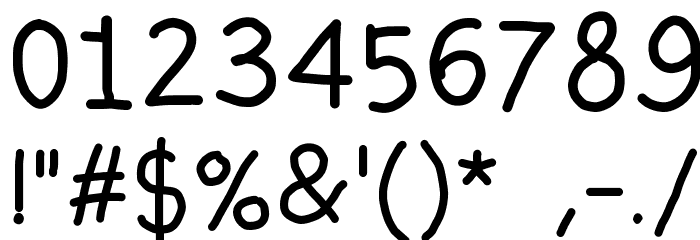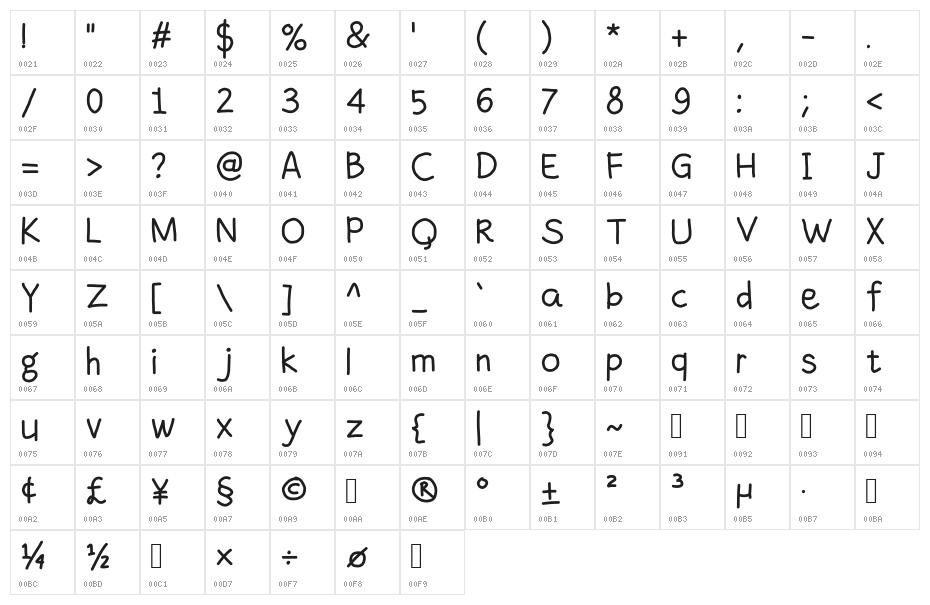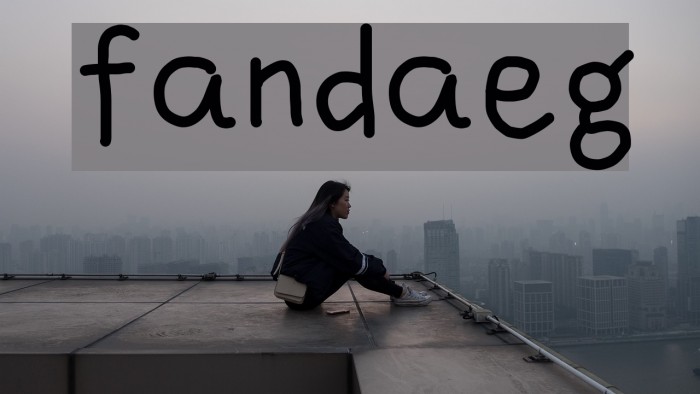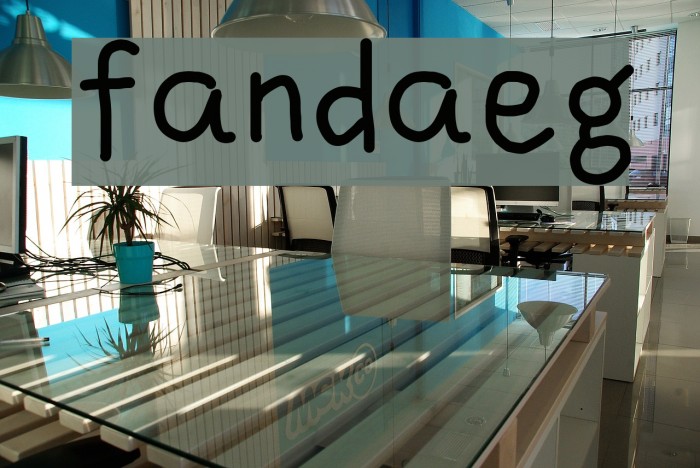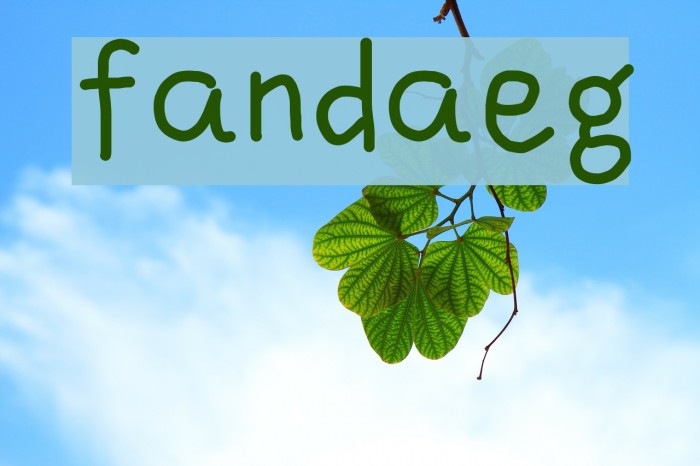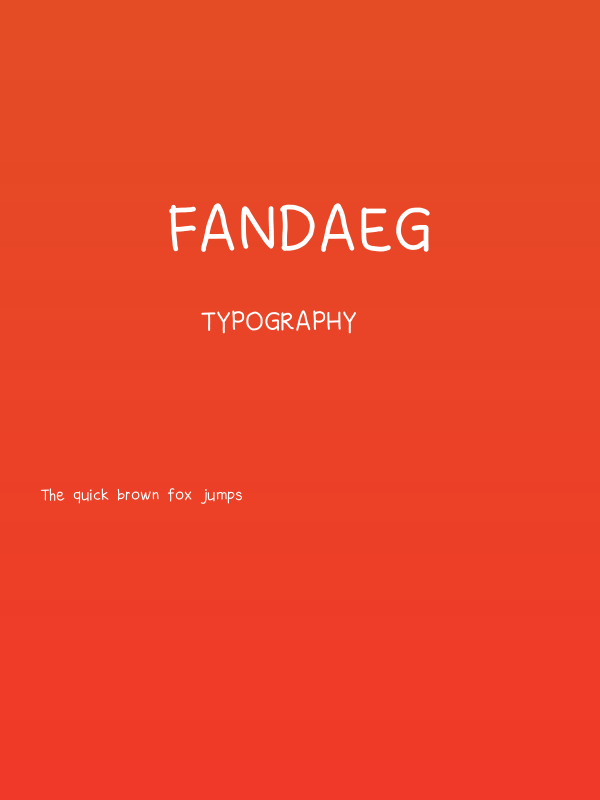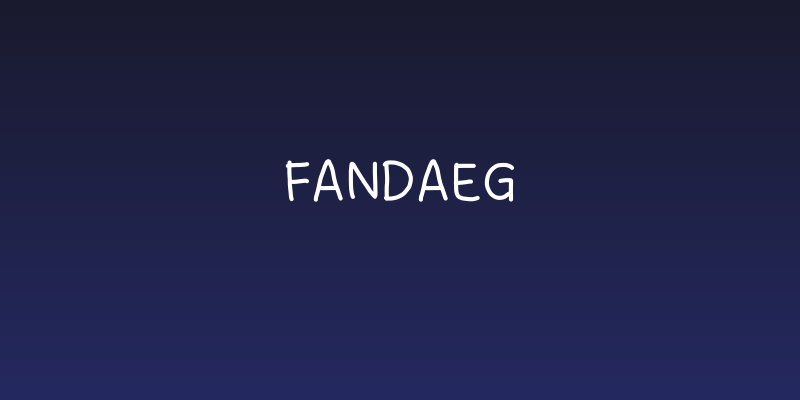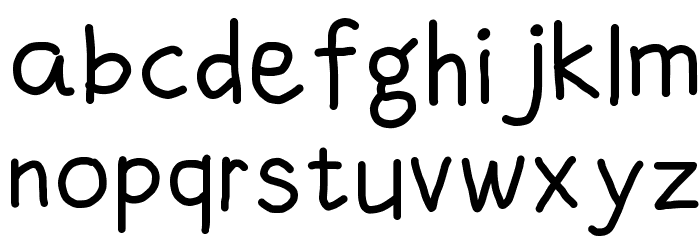
fandaeg Font
fandaeg Description
This font features a playful and casual handwritten style, characterized by its rounded and slightly irregular letterforms. The uppercase and lowercase letters maintain a consistent flow, giving it a friendly and approachable appearance. The numerals and special characters are designed to match the overall style, ensuring a cohesive look across all text elements. The strokes are uniform in thickness, providing a balanced and harmonious visual experience. This font is ideal for projects that require a personal touch, such as invitations, greeting cards, or children's books.
| Proposed Projects | Ideal for invitations, greeting cards, children's books, and casual branding. |